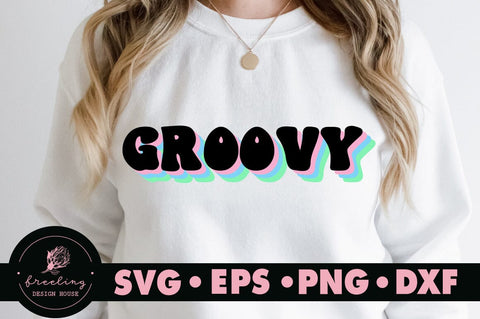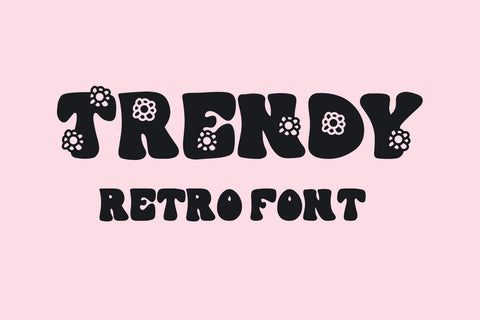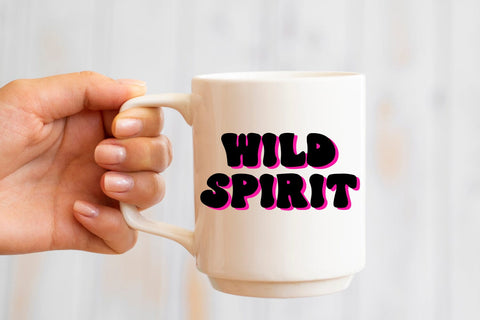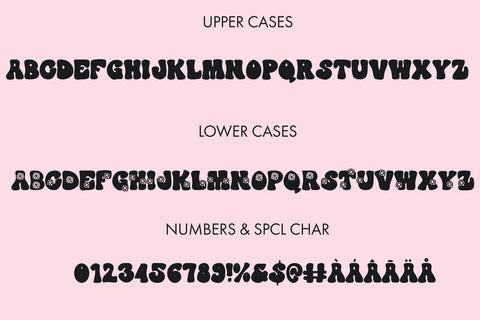
Trendy - A Retro Font
Trendy - A Handwritten Retro Font With Flowers Cut Out
Introducing 'Trendy' Handwritten Retro Font with Floral Delight! Embrace nostalgia with this bold and bulky typeface featuring intricate floral cutouts on one set of letters. Add a touch of vintage charm to your designs, invitations, and crafts. Stand out from the crowd with this unique and trendy font!
- Trendy - Comes with Uppercase A-Z and lowercase a-z letters, 0-9 numbers, stylistic alternates, limited punctuation and supports Western European Languages